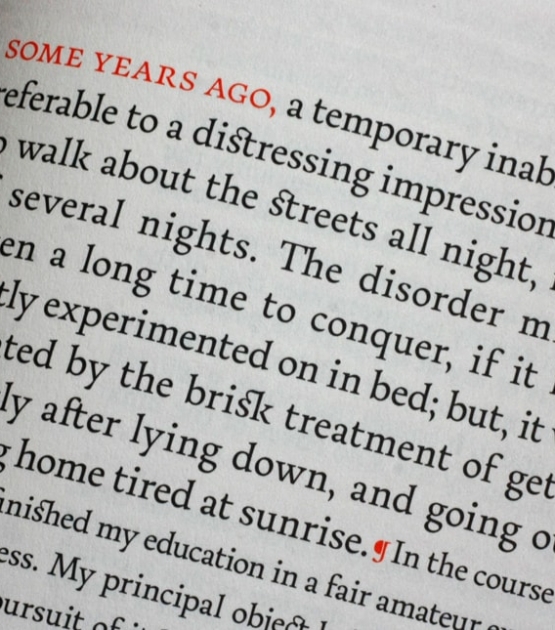
Athelas Cyrillic
Designed by Veronika Burian José Scaglione. Released 2013.
The Athelas Cyrillic font family has elegant curves and graceful serifs. Fluid shapes in the roman variants meet their counterpart in a more angular italic, but there are no sharp edges in the entire character set. Athelas Cyrillic shows its best side in finely crafted books and high quality printing conditions, or in digital works that place a premium on the tone and beauty of the piece.
Athelas Cyrillic
An elegant Cyrillic font family for books, successfully used both on screen and in print.
Inspired by Britain’s classic literature and created by Veronika Burian and José Scaglione, Athelas Cyrillic prioritises the beauty of fine book printing and makes it available digitally and in printed form. It takes full advantage of typographic tranquility — the white space in the margins, between the columns, the lines, the words, and finally within the characters themselves. Athelas Cyrillic breathes peacefully on the page to usher the reader into the wordsmith’s art.
Athelas Cyrillic is a typeface with open counters, elegant curves, and graceful serifs. Fluid shapes in the roman variants meet their counterpart in a more angular italic, but there are no sharp edges in the entire character set. Athelas Cyrillic also takes advantage of the technical developments made in offset printing. It shows its best side in finely crafted books and high quality printing conditions, or in digital works that place a premium on the tone and beauty of the piece.
Although inspired by British literature, Athelas Cyrillic respects the cultural needs of languages where diacritic marks play an indispensable role. It has a large character set covering most Latin-based languages, as well as monotonic Greek (designed by Irene Vlachou) and Cyrillic (designed by Tom Grace). As recognised by its usage in Apple Inc.’s iBooks app and the desktop operating system Mavericks, the complete Athelas family has been optimised for today’s varied screen uses, along with our entire catalogue.